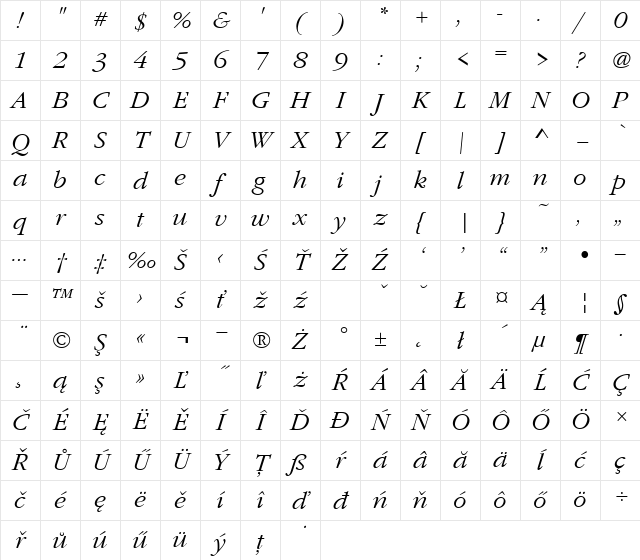
GaramItcTEELig Italic Italic
Style: Italic
Foundry: by URW
Design Context for GaramItcTEELig Italic
GaramItcTEELig Italic is a composed and adaptable typeface that performs quietly and consistently across a wide range of design contexts. The slanted form adds forward momentum and visual energy.
Pro Tip: Use GaramItcTEELig Italic for emphasis, pull quotes, and subheadings where its slanted energy can add rhythm to the layout.